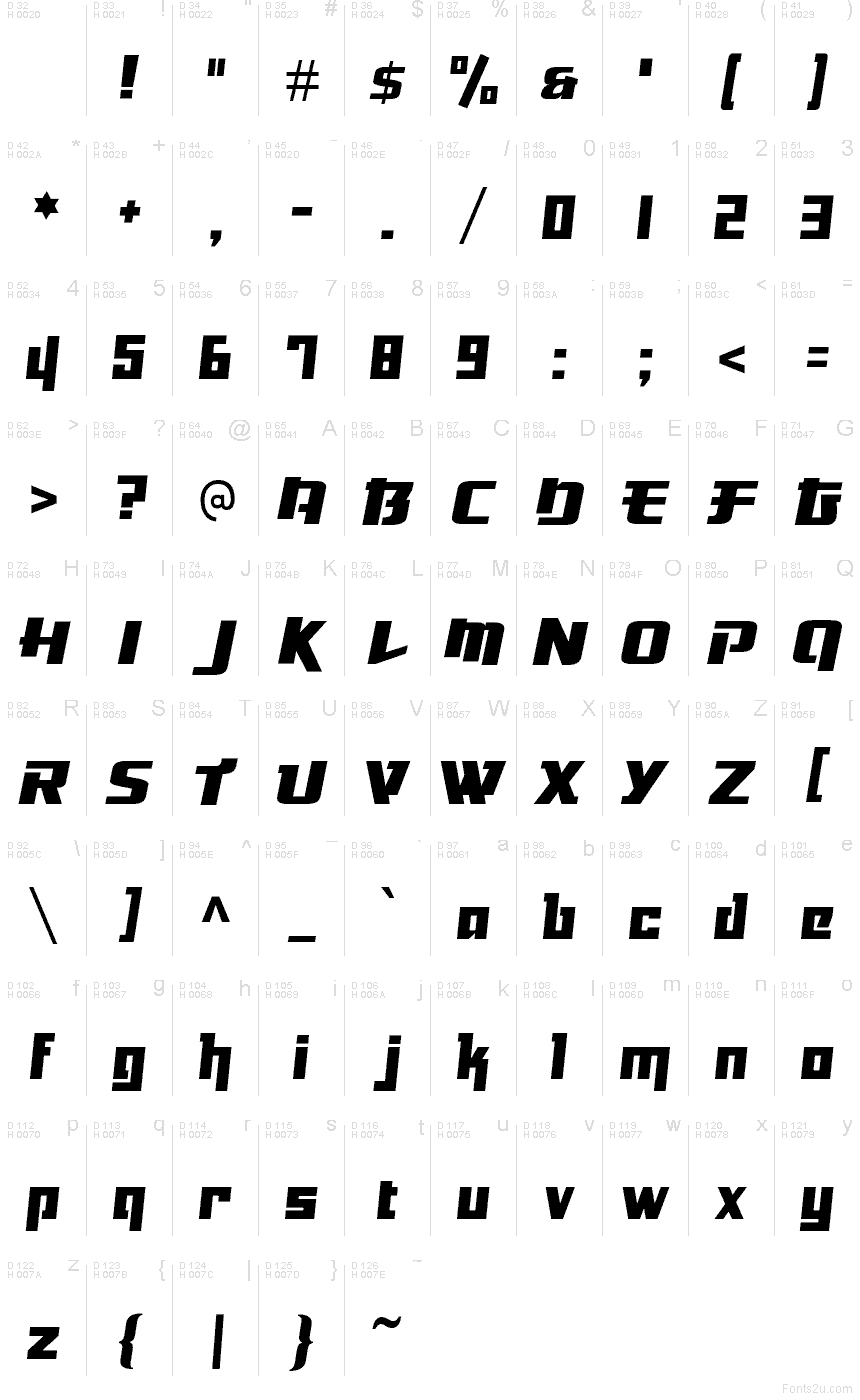
School Rules Former font by Élise Benoît of Microtype Fonts is a free retro display typeface with a sharp, slanted swagger that feels pulled from an old-school arcade cabinet or VHS action title. Its chunky, angular strokes and forward-leaning rhythm create a sense of motion even in a single word, while the tight spacing keeps letters snapping together like a bold logo lockup. Heavy black forms give it a punchy, inky presence that holds up at large sizes and on noisy backgrounds.
Using School Rules Former, you can push headlines for posters, gaming graphics, throwback event flyers, sports branding, zines, and YouTube thumbnails into full-on attitude mode. This free font shines when you let it run big and loud, then pair it with a plain, modern sans serif for body copy to keep things readable. Reach for it anytime you want retro energy with a fast, rebellious edge.